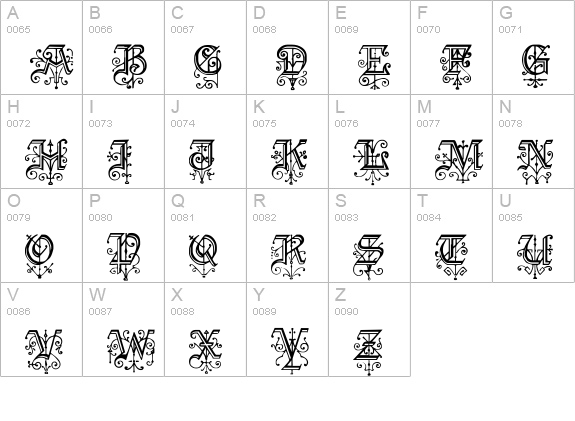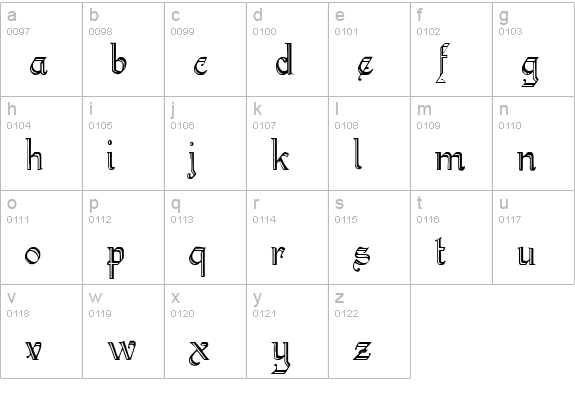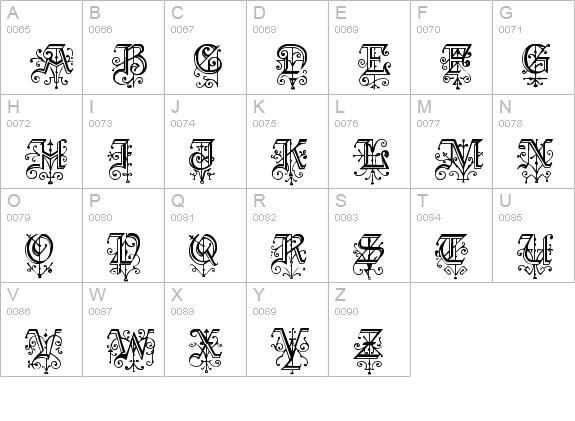
KellyAnnGothic Regular is the standard, neutral variant in the KellyAnnGothic typeface family \xE2\x80\x94 well suited to general body text, paragraphs, and standard typographic work.
KellyAnnGothic Regular is a stunning font that combines elegance with a touch of gothic flair. Its beautifully intricate letterforms are inspired by the artistic elements of Gothic architecture, creating a unique and captivating aesthetic. This font is perfect for adding a touch of sophistication and mystery to any project. One of the best things about KellyAnnGothic Regular is that it is available for free download at FontsMarket.com. Whether you are a designer working on a professional project or an individual looking to add a touch of creativity to your personal work, this font is a must-have. Its versatility makes it suitable for a wide range of applications, from branding and logos to invitations and website designs. The attention to detail in this font is truly remarkable. Each letter is meticulously crafted, ensuring that every word you create with KellyAnnGothic Regular is visually striking and memorable. The bold strokes and delicate curves give this font a sense of power and elegance, making it stand out from the crowd. With its freely available download, KellyAnnGothic Regular offers accessibility and convenience to anyone in need of a high-quality gothic font. Its compatibility with various design software and platforms ensures that you can seamlessly integrate it into your projects without any hassle. If you are looking to make a statement and leave a lasting impression, KellyAnnGothic Regular is the font for you. Its unique blend of gothic influences and modern design elements will set your work apart and make it truly unforgettable. Download it for free today at FontsMarket.com and unlock the endless possibilities that this font has to offer.